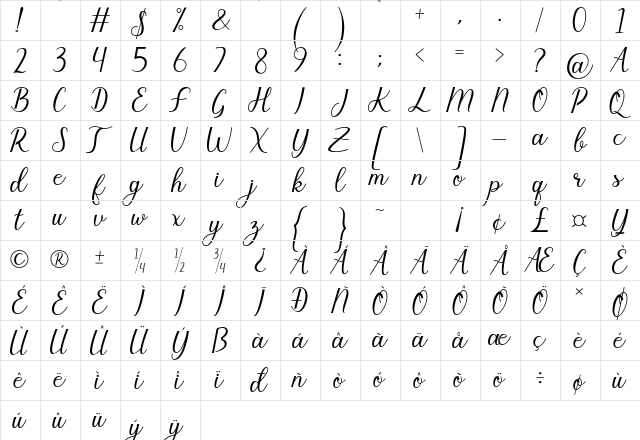
Salvyna Regular
Design Context for Salvyna Typeface
Salvyna takes a measured approach to typography — its balanced proportions and neutral character make it a reliable workhorse for both digital and print work.